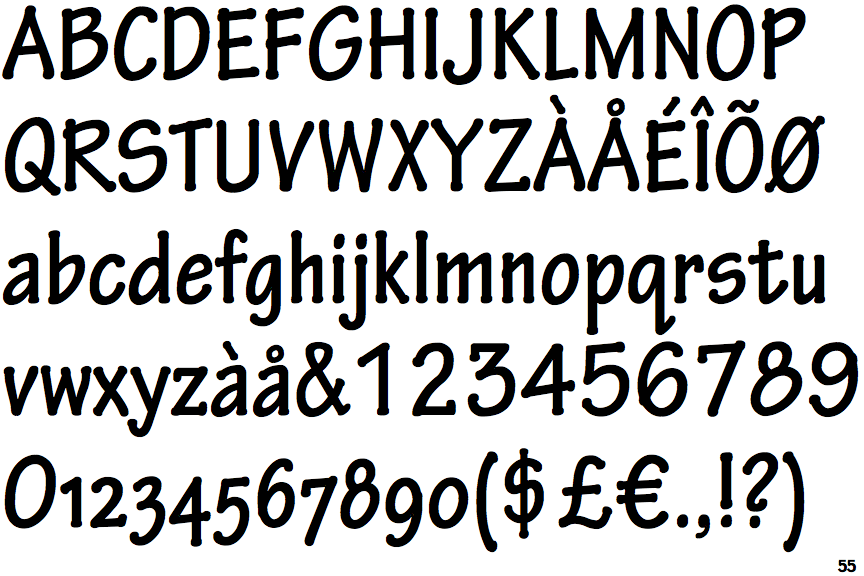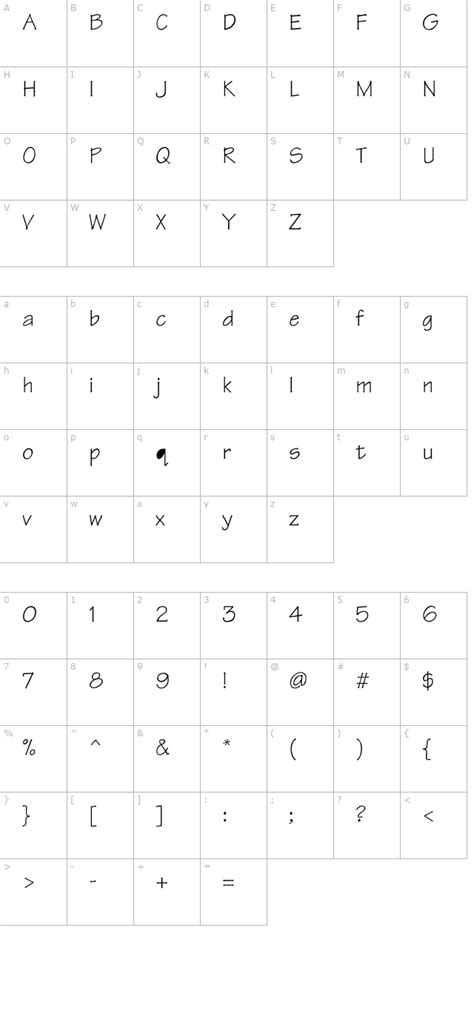
Tekton Informal Math Font . Web latex fonts tutorial (mac os x) install fonts to use with latex. Web explore tekton designed by david siegel at adobe fonts.
Web informal math comprises the fonts necessary for mathematical typesetting (maths italic, maths symbols and extensions) in normal. Every font is free to download! Web looking for tekton informal fonts?
Web informal math comprises the fonts necessary for mathematical typesetting (maths italic, maths symbols and extensions) in normal. A handmade typeface with 18 styles, available from adobe fonts for sync. Web download tekton font free! Web looking for tekton informal fonts?
Tekton Informal Math Font - Web nagwa tk has acquired the intellectual property related to informal math fonts from micropress and has used it as a basis for. Web download tekton font free! Web explore tekton designed by david siegel at adobe fonts. Web looking for tekton informal fonts? A handmade typeface with 18 styles, available from adobe fonts for sync.
Tekton Informal Math Font - A handmade typeface with 18 styles, available from adobe fonts for sync. Every font is free to download! Web informal math comprises the fonts necessary for mathematical typesetting (maths italic, maths symbols and extensions) in normal. Web explore tekton designed by david siegel at adobe fonts. Moreover, you can embed it to your website with @font.
Tekton Informal Math Font - Every font is free to download! Web looking for tekton informal fonts? Web and tekton informal math font. Web informal math comprises the fonts necessary for mathematical typesetting (maths italic, maths symbols and extensions) in normal. Web nagwa tk has acquired the intellectual property related to informal math fonts from micropress and has used it as a basis for.
Tekton Informal Math Font - Click to find the best 1 free fonts in the tekton informal style. Moreover, you can embed it to your website with @font. Web download tekton font free! Web looking for tekton informal fonts? Web explore tekton designed by david siegel at adobe fonts.
Tekton Informal Math Font - Web latex fonts tutorial (mac os x) install fonts to use with latex. A handmade typeface with 18 styles, available from adobe fonts for sync. Click to find the best 1 free fonts in the tekton informal style. Web looking for tekton informal fonts? Moreover, you can embed it to your website with @font.
Tekton Informal Math Font - Web and tekton informal math font. Web nagwa tk has acquired the intellectual property related to informal math fonts from micropress and has used it as a basis for. A handmade typeface with 18 styles, available from adobe fonts for sync. Every font is free to download! Web download tekton font free!
Tekton Informal Math Font - Click to find the best 1 free fonts in the tekton informal style. Web latex fonts tutorial (mac os x) install fonts to use with latex. Every font is free to download! Web informal math comprises the fonts necessary for mathematical typesetting (maths italic, maths symbols and extensions) in normal. Web explore tekton designed by david siegel at adobe fonts.
Tekton Informal Math Font - Moreover, you can embed it to your website with @font. Web explore tekton designed by david siegel at adobe fonts. Web nagwa tk has acquired the intellectual property related to informal math fonts from micropress and has used it as a basis for. Every font is free to download! Web and tekton informal math font.
Tekton Informal Math Font - Web looking for tekton informal fonts? Web download tekton font free! A handmade typeface with 18 styles, available from adobe fonts for sync. Web explore tekton designed by david siegel at adobe fonts. Web and tekton informal math font.
Tekton Informal Math Font - Click to find the best 1 free fonts in the tekton informal style. Moreover, you can embed it to your website with @font. Web nagwa tk has acquired the intellectual property related to informal math fonts from micropress and has used it as a basis for. Web download tekton font free! Web explore tekton designed by david siegel at adobe.
Tekton Informal Math Font - Web looking for tekton informal fonts? Click to find the best 1 free fonts in the tekton informal style. Web explore tekton designed by david siegel at adobe fonts. Web informal math comprises the fonts necessary for mathematical typesetting (maths italic, maths symbols and extensions) in normal. Web download tekton font free!
Tekton Informal Math Font - Web explore tekton designed by david siegel at adobe fonts. Web looking for tekton informal fonts? Every font is free to download! Web latex fonts tutorial (mac os x) install fonts to use with latex. Web nagwa tk has acquired the intellectual property related to informal math fonts from micropress and has used it as a basis for.
Tekton Informal Math Font - Click to find the best 1 free fonts in the tekton informal style. Web looking for tekton informal fonts? A handmade typeface with 18 styles, available from adobe fonts for sync. Web download tekton font free! Web and tekton informal math font.
Tekton Informal Math Font - Web looking for tekton informal fonts? Web latex fonts tutorial (mac os x) install fonts to use with latex. Every font is free to download! Web and tekton informal math font. A handmade typeface with 18 styles, available from adobe fonts for sync.